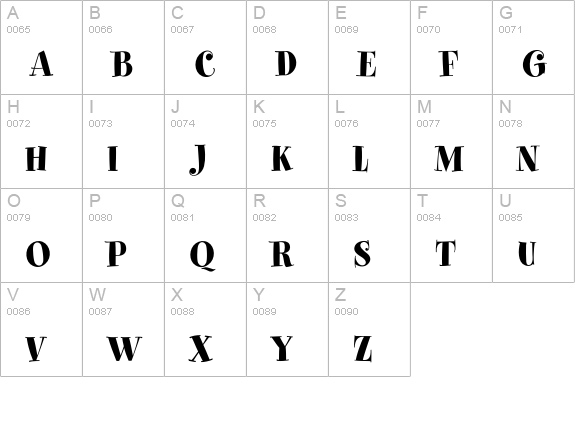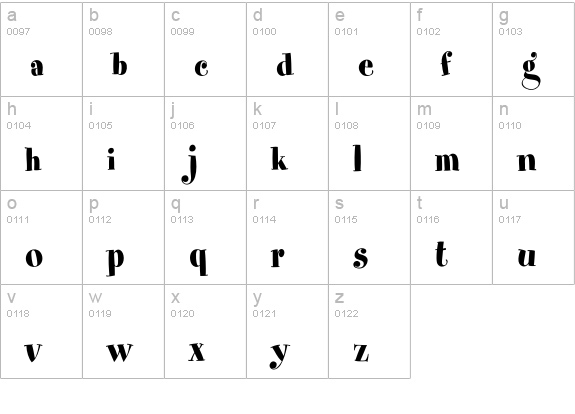
Spumoni font is a delightful and versatile typeface that exudes elegance and charm. With its unique combination of classic and modern elements, this font is perfect for any design project that requires a touch of sophistication. Featuring a wide range of characters, Spumoni font offers endless possibilities to create eye-catching headlines, captivating logos, and stunning designs. Its smooth and flowing lines add a sense of grace and beauty to any text, making it stand out from the crowd. But what truly sets Spumoni font apart is that it is free. Yes, you read that right! This exceptional font is freely available to download at FontsMarket.com. Now, you can elevate your designs without breaking the bank. Whether you're a professional designer or a creative enthusiast, Spumoni font is a valuable addition to your font library. So, why wait? Unlock the potential of your designs with Spumoni font. Download it for free at FontsMarket.com and let your creativity soar to new heights.